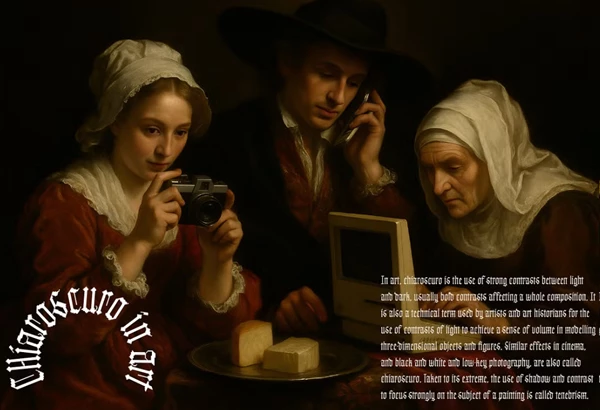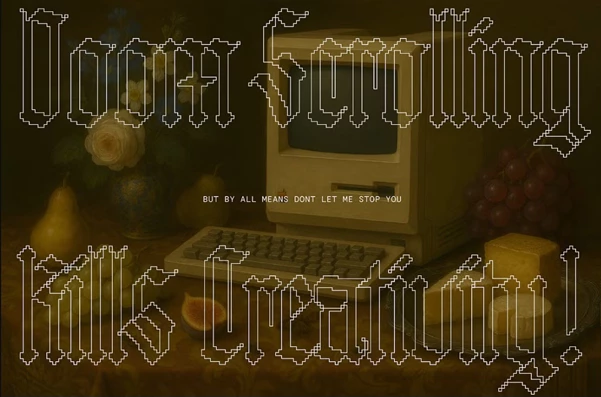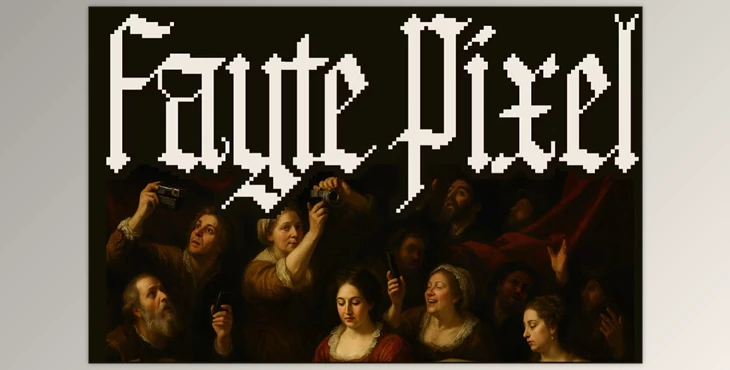
Fayte Pixel Retro Blackletter font:
Take your digital crafting experience back in time with the Fayte Pixel Retro Blackletter font, a stunning mix of pixelated digital design and the historical standard of blackletter. A true work of art, it possesses two styles: Hard, a knightly blade rendered hard and in-your-face, and Soft, a quill with soft, bristle-like edges. Each character draws on the historical references of ancient medieval scribes and market announcements while embracing the retro design of the digital pixel age. From proclamations to digital parchment scrolls and even for nuances in virtual realities, this is the perfect complement for your own digital crafting experience or a fun nod to the past. Either way, this is an efficient and aesthetically pleasing solution that combines the best of both worlds.